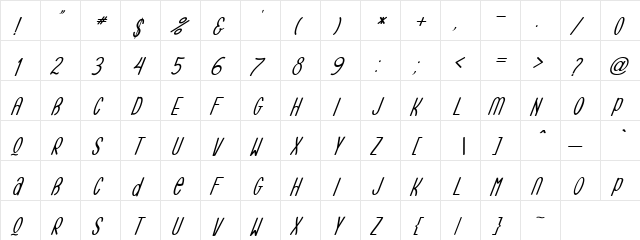
Romario Italic Demo Regular
| Foundry | j-creative |
| Designer | j-creative |
Design Context for Romario Italic Demo Typeface
Romario Italic Demo offers clean, dependable letterforms without strong stylistic allegiance, making it a practical choice for designers who need flexibility. The dynamic lean of this cut emphasises speed and emphasis in any layout.